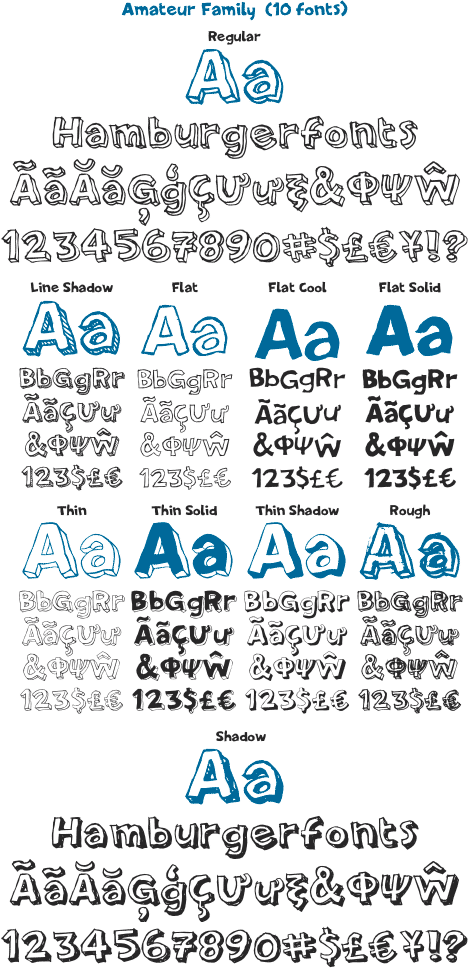
PF Amateur Family (10 Fonts) (Parachute)
The hand of an amateur typographer, a bored student in the classroom, a salesman while he waits for a customer to come in, your secretary at her best. Loosely designed, almost violent., ideal for strong messages. This typeface comes in 10 different styles and supports all languages that are based on the Latin and Greek scripts.Each style includes 461 glyphs and supports 80 languages.